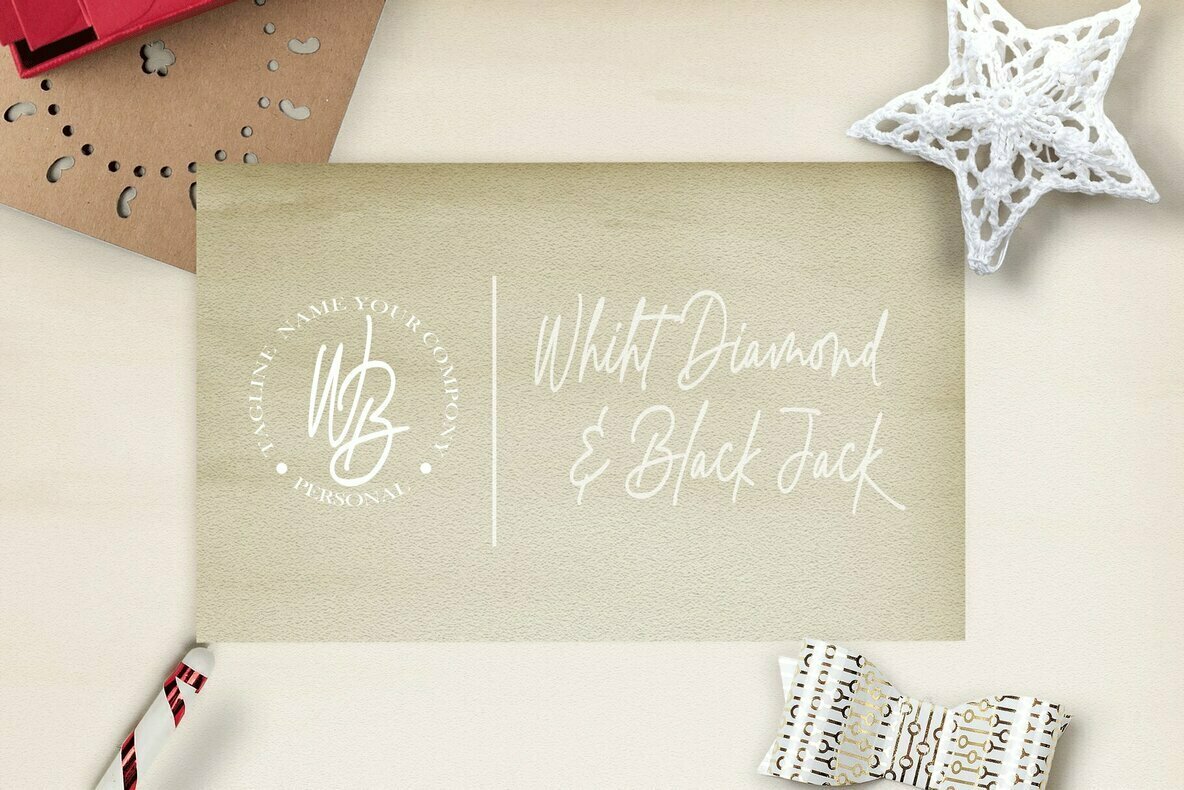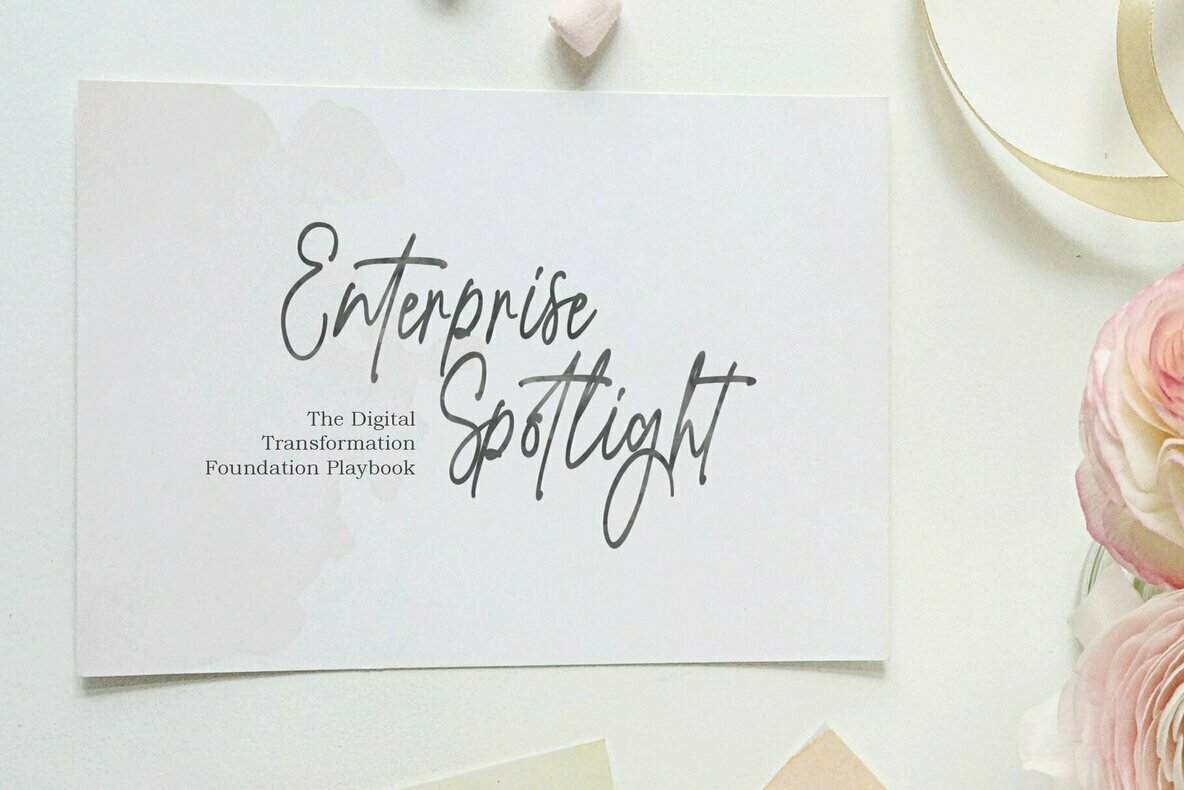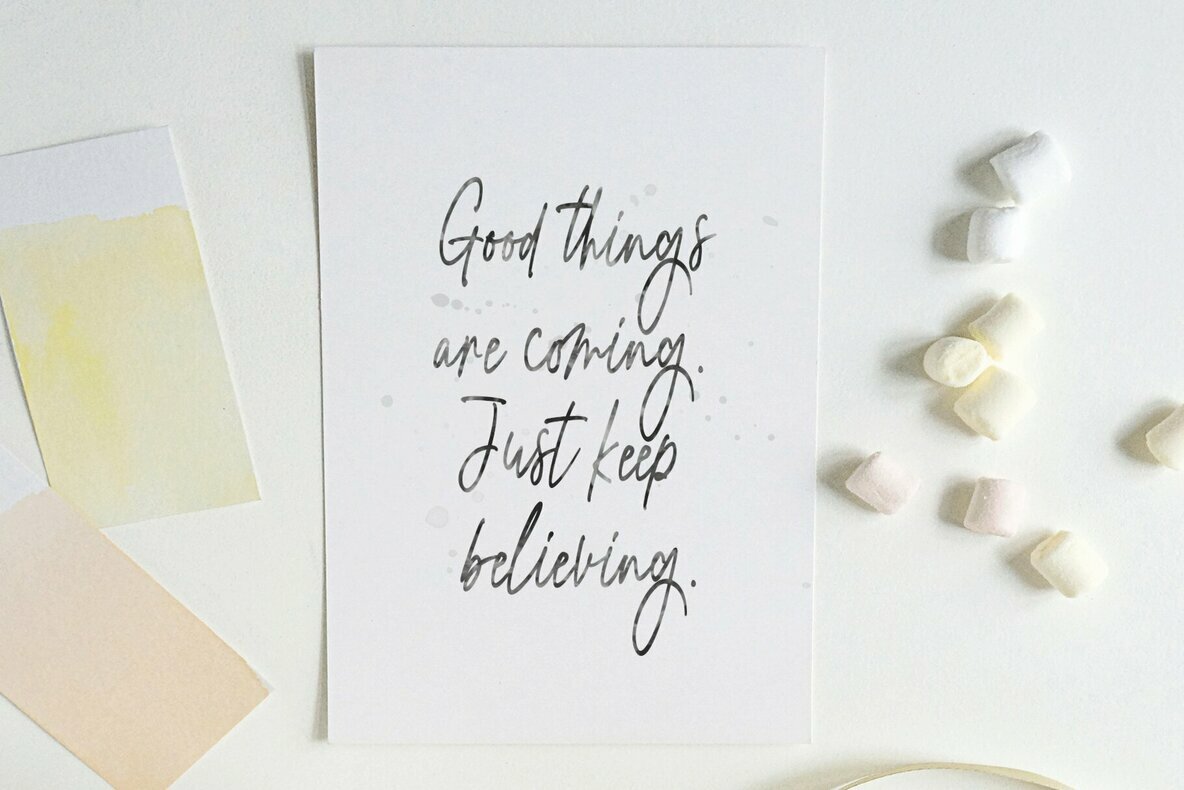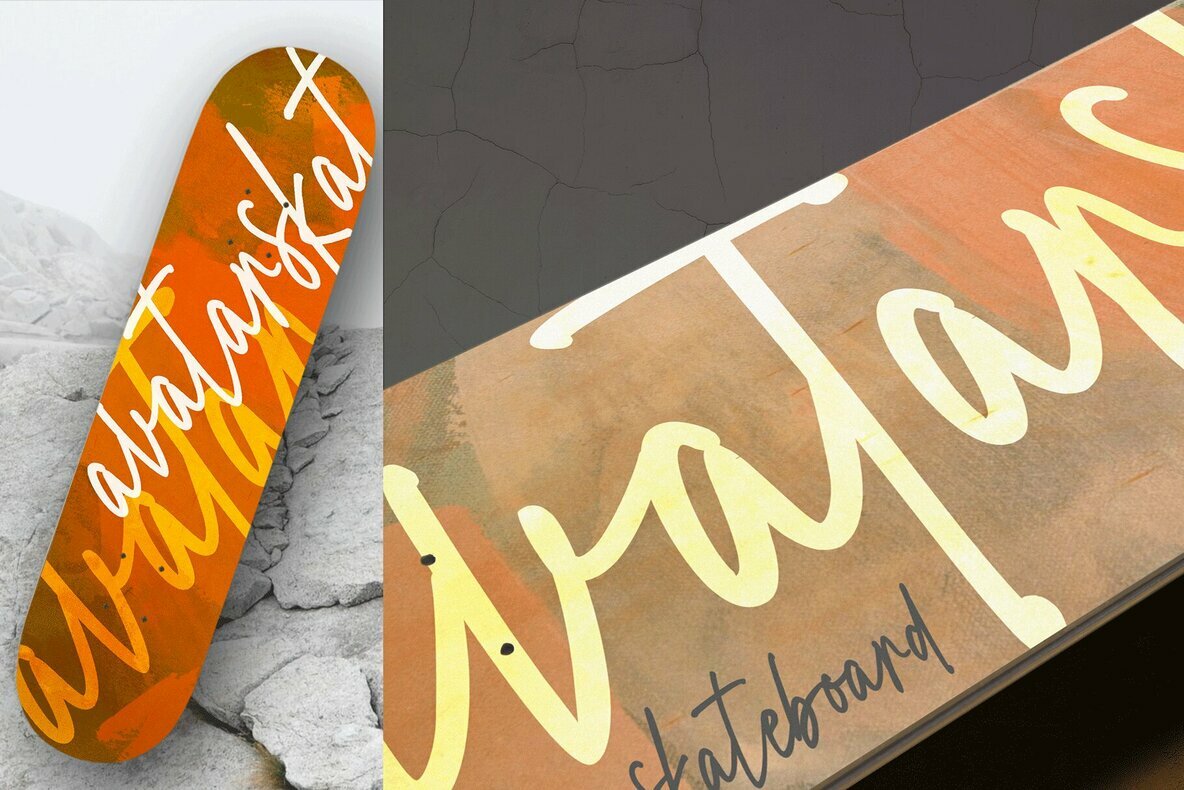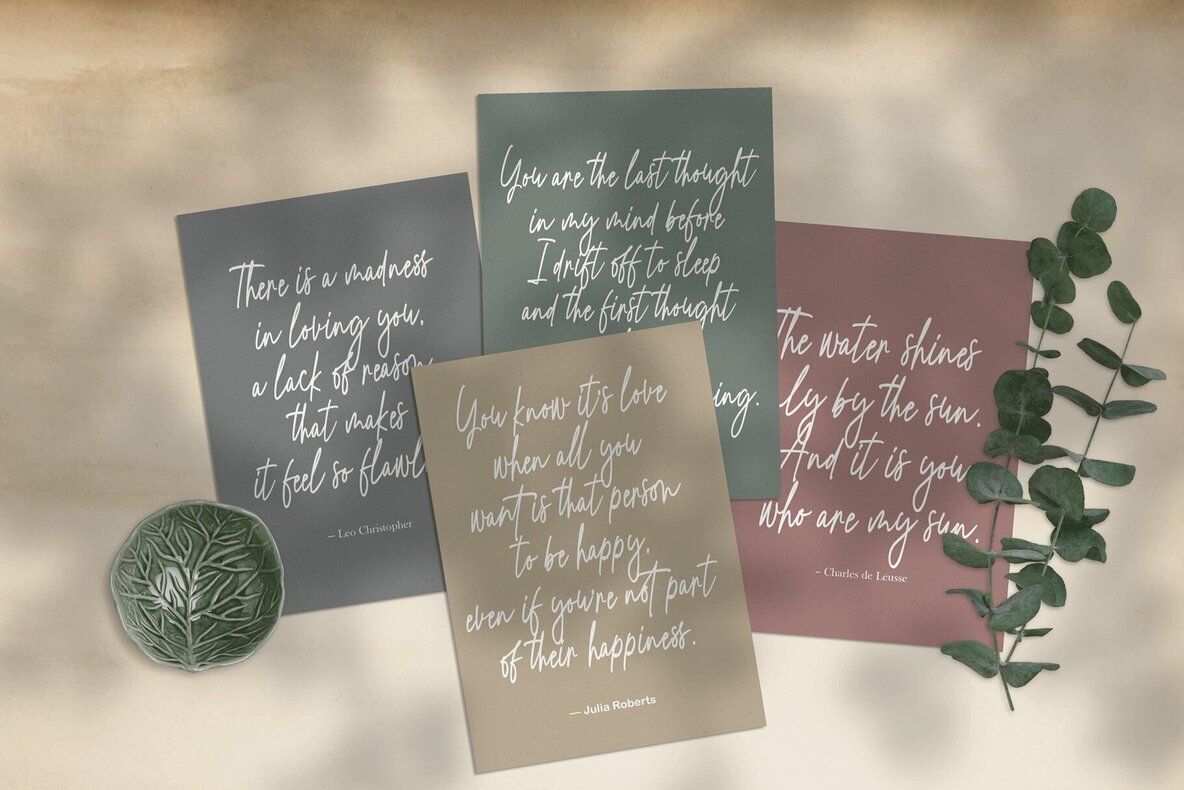
Smoothen Font
Smoothen
Smoothen by Artisan Studio is a meticulously handmade font, distinct in its monoline style, perfect for crafting personalized invitations, elegant signatures, engaging blogs, and sophisticated social media posts. This font also enhances business cards and product branding with an individualized charm. Features:Smoothen: Distinct Monoline Style